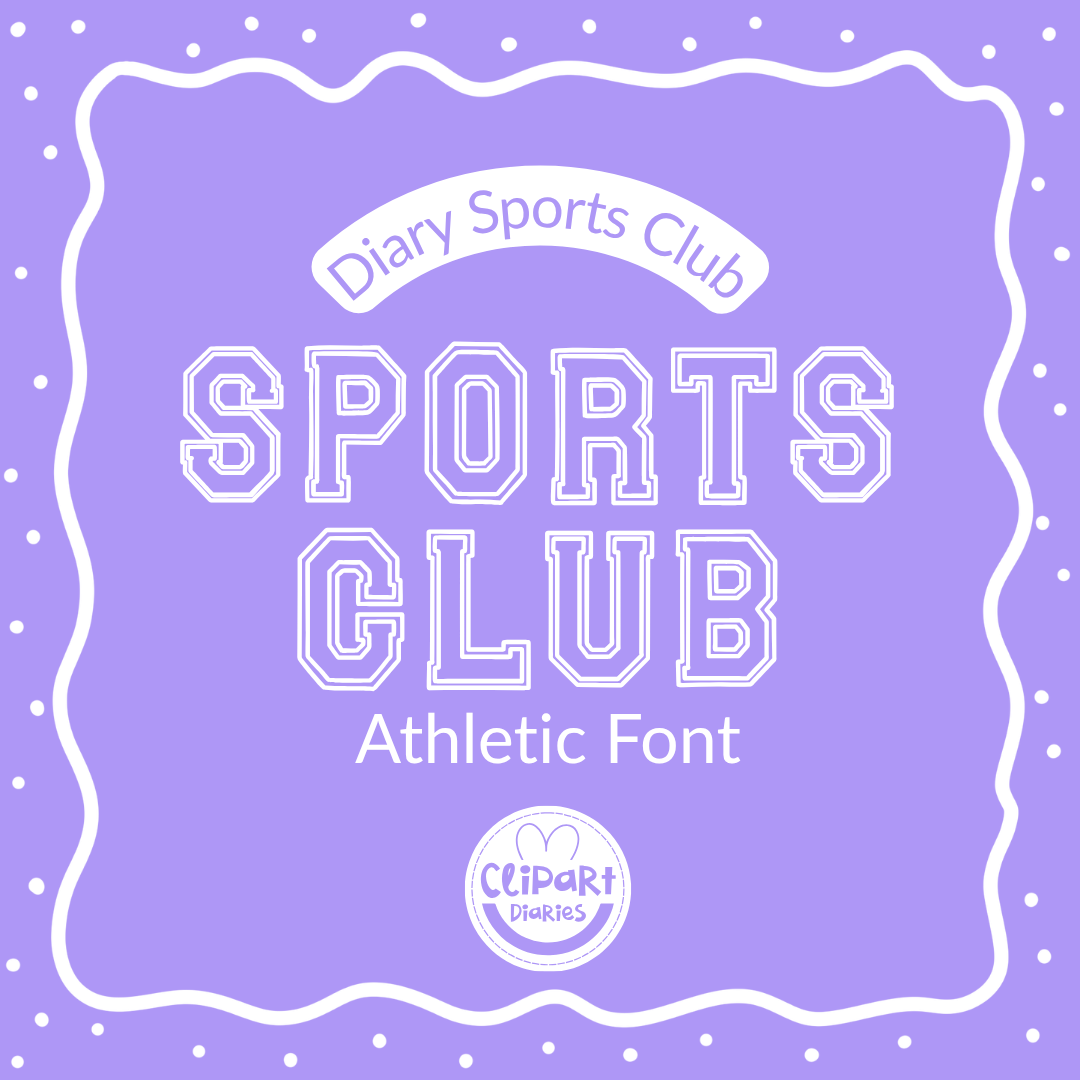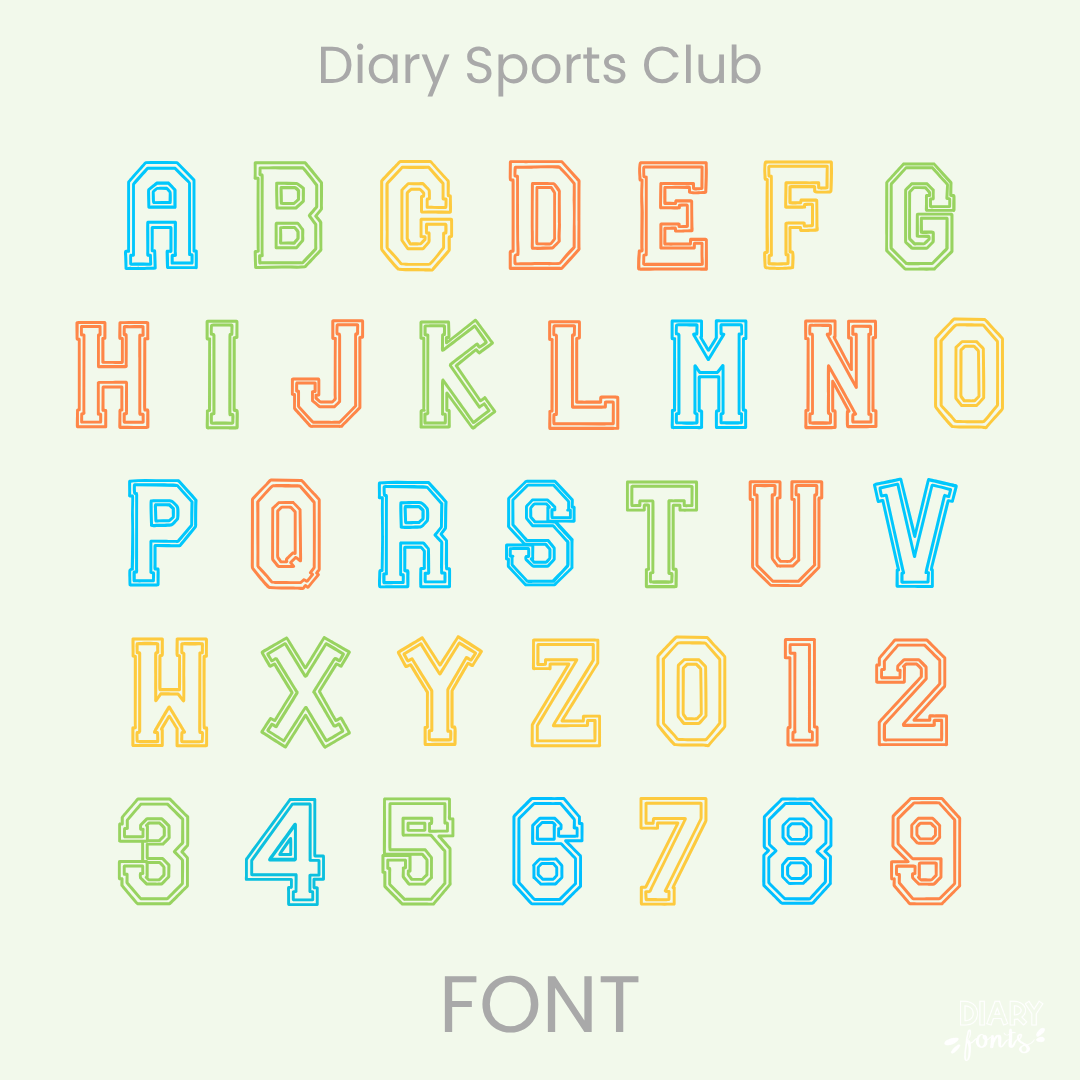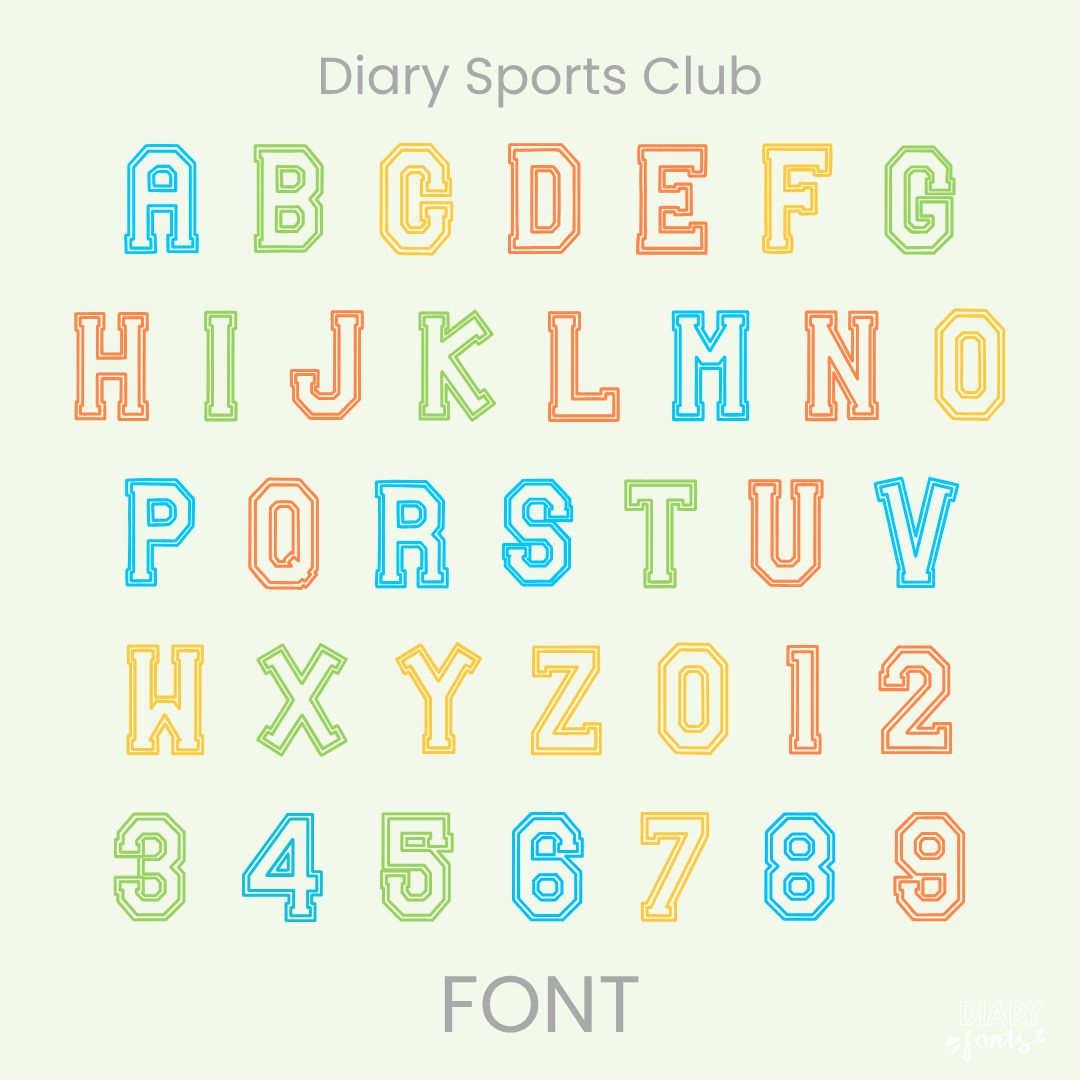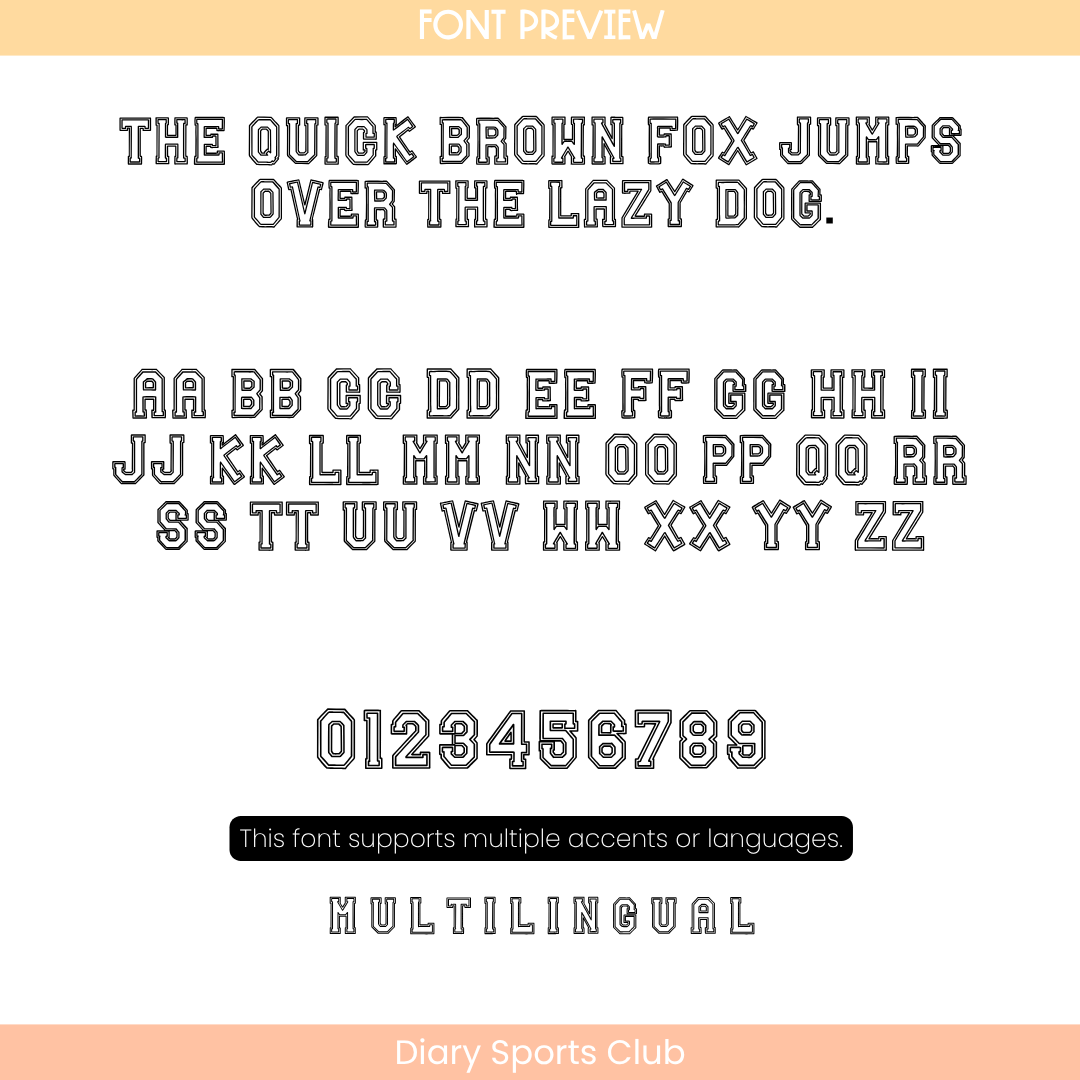
If you’ve been searching for a bold, athletic typeface to bring some serious team spirit to your layouts, Diary Sports Club is about to become your new absolute favorite design tool. This fun display font features clean, hollow college block letters wrapped in a sharp, sporty double-outline. Because it features all-uppercase letterforms that sit perfectly straight along the baseline, it gives you that timeless varsity jacket look while staying exceptionally crisp and easy for your sweet students to read from all the way across the room.
It is the absolute perfect choice for designing high-impact school Sportsfest shirts, pep rally banners, field day certificates, morning presentation slide titles, and classroom spirit bulletin boards. Inside the download, you’ll get a full set of collegiate outline uppercase letters, matching athletic numbers, and multi-accent support for different languages. It drops right into Canva, MS Office, or Adobe on your desktop, and pairs beautifully with Procreate and GoodNotes on your iPad. Whether you’re cheering on your own sweet students for a big school event or designing varsity-themed commercial resources for your teacher shop, this athletic beauty adds a touch of confident, high-energy style to your creative toolkit.